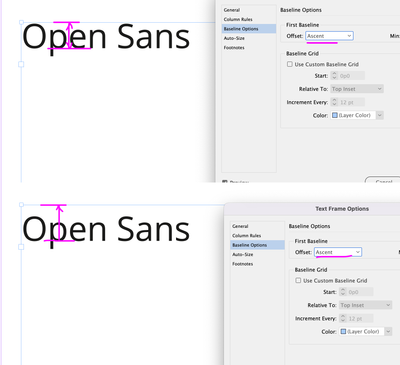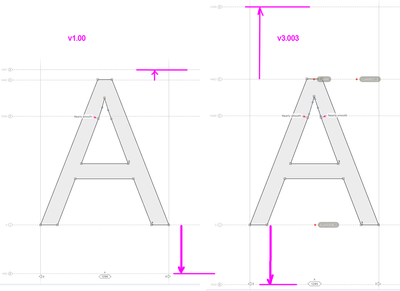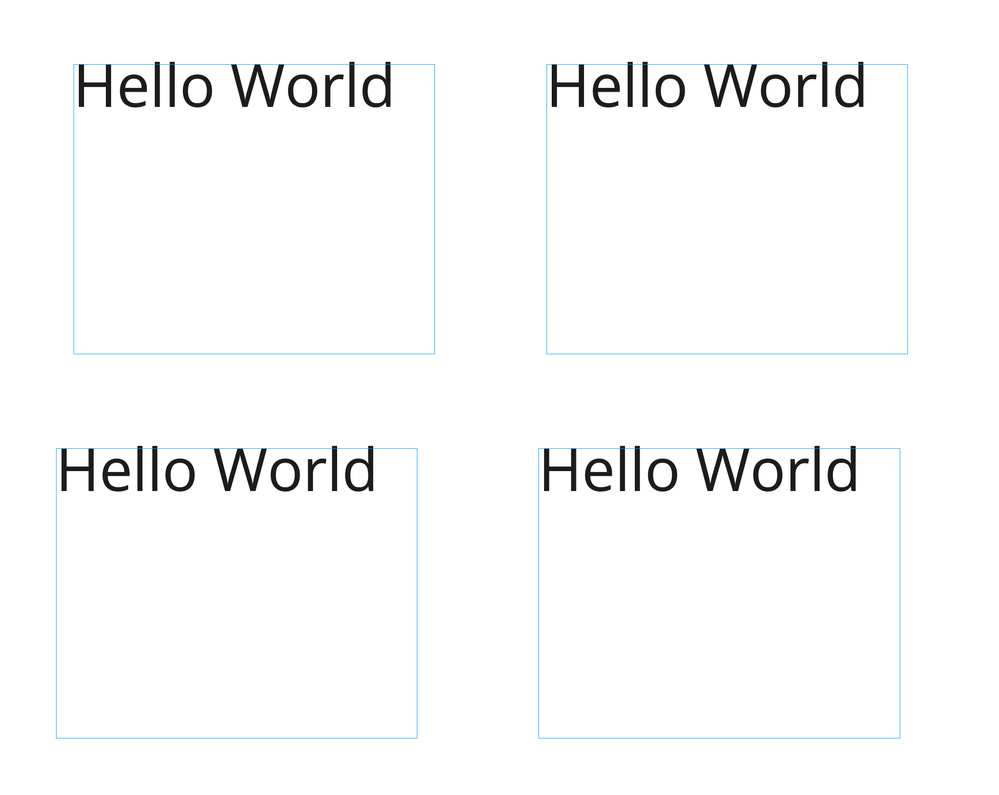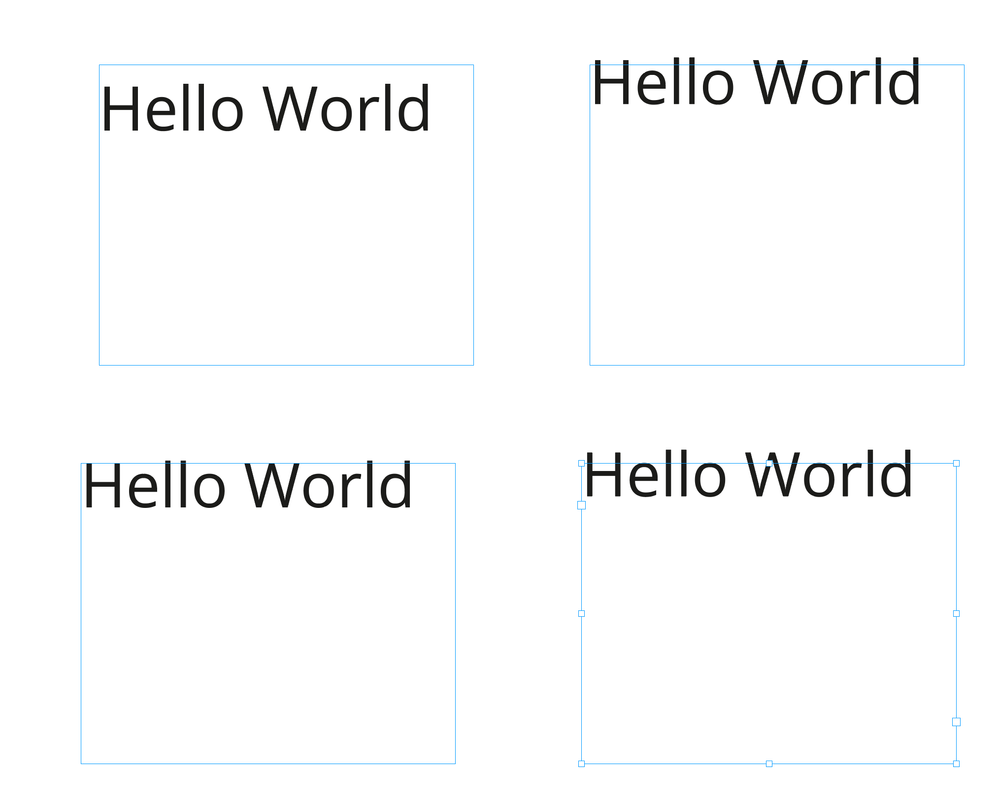
I'm experiencing a strange effect when I open a document created by my customer. When I try to edit some text created in Open Sans Regular font, the lead line changes. Even when I just put an additional space or just change a language.
I'm trying to understand the reason for this effect as it ruins the vertical alignment in the entire document.
I'm including a short video showing this issue. The font is included in the "Document font" folder, and the preflight does not show any issues.
Do you have a version of Open Sans Regular activated within your system or font management utility?
I'm using the font provided by the creator of the file. It is saved in the "Document fonts" folder of the project. It is not installed in Windows or Adobe folder.
Can you confirm the original document was created with the same language setting and advanced type preferences you are using?
Oh, Open Sans.
Despite the fact the fonts were supplied in the Document Fonts folder when your client packaged them, make sure you haven't loaded Open Sans from another location... i.e. Adobe Fonts. This can happen silently if you have the preference to "Auto-Activate Adobe fonts" set in ID's Preference > File Handling. Check your CC Account for activated fonts to see if Open Sans is activated there. (You can also just check under Find/Replace fonts to see the path of the loaded font YOU are using: it'll either be a path to the supplied font folder or "Activated from Adobe fonts")
The issue comes down to the version of Open Sans. As an open source font that has been constantly changed and updated, it has released versions with different Ascent parameters defined in the font over the years. This causes an issue if your text boxes are set to First Baseline > Ascent. Depending on which font version your file is actually using, the first line will move up or down accordingly.
If you can't sort out the fonts, you may have to play with the First Baseline (e.g. change it to Cap Height)
Many thanks for your detailed answer. In fact, Open Sans font causes a lot of issues here.
I've made sure the font is not used from any other location in my PC and I also turned off Adobe Fonts feature. When I delete the "Document font" folder, Preflight says the font is missing so I assume Indesign uses only the font provided by the creator - this is also confirmed by "Change replace/font" window which shows "Source: Font intalled in the document".
Despite the above, the font is "jumping" arround the baseline. That is why I changed "First Baseline" to "Cap Height" which resolved the situation. I really appreciate your help. However, I wonder why it happens. Is it possible that Indesign includes the other font version in the package? I.e. it uses the font from "Adobe font" feature in the creator's PC, but adds the "local" font when the package is created? I would like to undestand the issue to avoid it in futer. I also want to minimize changing the original setting.
It's a versioning problem: The version of Open Sans served by Adobe fonts is v1.00x, and the one that Google currently serves is v3.00x (currently v3.003). Because it's evolving contstantly as an open source font, over the years the Ascender and Descender buffer zone has been made larger, mostly to accommodate new alternative language glyphs (accent markes, etc).
So, if the file was built using Adobe fonts' version (or older Google versions pre v3.00x), and you open it using the current Google fonts, as soon as you do ANY change to a line of text with Open Sans, InDesign will recompose using the new specs, hence why you are seeing the jump.
This is what each version looks like in a font editor. You can see how the Acender buffer on v.300x is much larger.:
Yes, Brad, you are entirely correct. When I set "Cap Height" the font stops jumping.
However, the problem is also that this effect is unpredictable: I got several datasheets from my provider. These datasheets are almost identical - only some photos of the product differ, and... in some datasheets the font jumps and in the other - not. Same font (available in Document fonts folder), all the settings I can check the same. That is why I wonder if there is any possibility to override the Baseline setting globally (for the entire document)?
Hi @janu18895212 , You could set all of the document’s text frame’s first basline offset to Caps via scripting. Something like this:
app.activeDocument.textFrames.everyItem().properties = {textFramePreferences:{firstBaselineOffset:FirstBaseline.CAP_HEIGHT}}
Does this:
Before
After
Hi @rob day, looks great. Would it also apply to all the table cells?
No, this would set the document’s table cells’ first baseline offset:
app.activeDocument.stories.everyItem().tables.everyItem().cells.everyItem().firstBaselineOffset = FirstBaseline.CAP_HEIGHT;